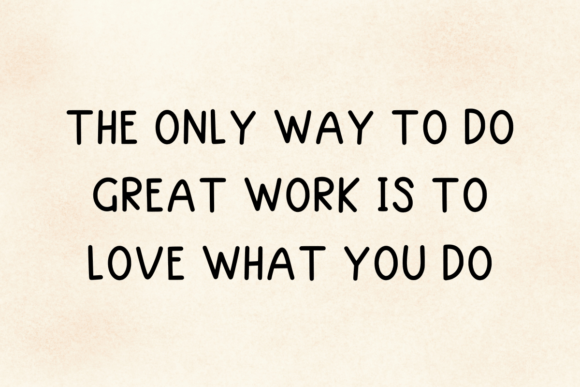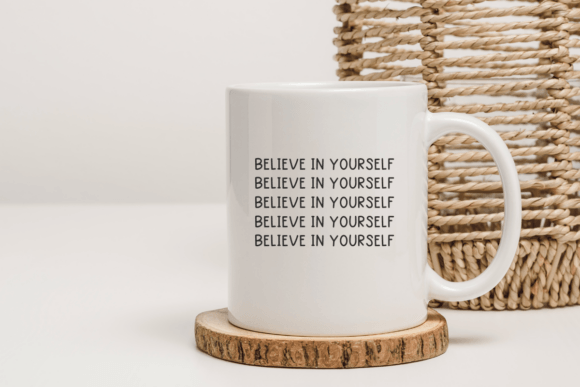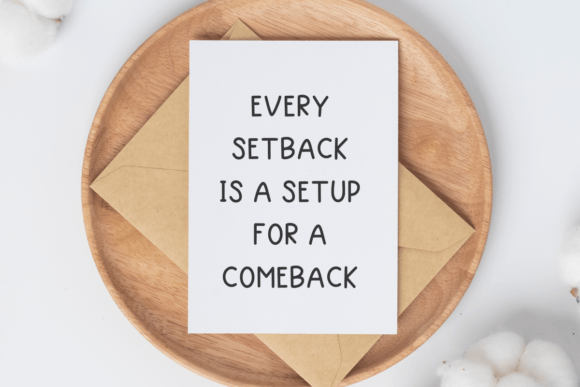
Introducing December Minimalist Font: A Fun Christmas Sans Serif Font for Creative Projects
Are you looking for a font that adds a touch of festive fun to your creative projects? Look no further than the December Minimalist Font! This delightful sans serif font is perfect for a wide range of applications, from KDP books and journals to teaching materials, quotes, scrapbooks, planners, memos, greeting cards, and many more.
What Makes December Minimalist Font So Special?
December Minimalist Font is a unique and playful font that is sure to capture the spirit of the holiday season. Its clean and simple design makes it easy to read and versatile enough to use in a variety of contexts. Whether you’re creating a Christmas-themed journal, a set of festive greeting cards, or a fun planner, this font is sure to add a touch of whimsy and charm.
December Minimalist Font is a dream come true for designers and crafters who love to create unique and engaging projects. With its modern sans serif design, this font is perfect for anyone who wants to add a touch of sophistication and style to their work. Whether you’re a professional designer or a hobbyist crafter, this font is sure to inspire your creativity and help you create stunning projects.
Ideas for Using December Minimalist Font
So, what can you create with December Minimalist Font? The possibilities are endless! Here are a few ideas to get you started:
- KDP Books and Journals: Use December Minimalist Font to create fun and festive KDP books and journals that are perfect for the holiday season.
- Teaching Materials: Add a touch of Christmas cheer to your teaching materials, such as worksheets, quizzes, and activity sheets.
- Quotes and Graphics: Use December Minimalist Font to create inspiring quotes and graphics that are perfect for social media, blogs, and websites.
- Scrapbooks and Photo Albums: Add a personal touch to your scrapbooks and photo albums with December Minimalist Font.
- Planners and Organizers: Create fun and functional planners and organizers that are perfect for keeping track of appointments, tasks, and goals.
- Greeting Cards and Invitations: Use December Minimalist Font to create festive greeting cards and invitations that are perfect for the holiday season.
Why Choose December Minimalist Font?
So, why should you choose December Minimalist Font for your creative projects? Here are just a few reasons:
- Unique and Playful Design: December Minimalist Font has a unique and playful design that is sure to capture the spirit of the holiday season.
- Easy to Read: This font is clean and simple, making it easy to read and versatile enough to use in a variety of contexts.
- Versatile: December Minimalist Font is perfect for a wide range of applications, from KDP books and journals to teaching materials, quotes, scrapbooks, planners, memos, greeting cards, and many more.
- Fun and Festive: This font is perfect for adding a touch of Christmas cheer to your creative projects.
In conclusion, December Minimalist Font is a fun and festive sans serif font that is perfect for a wide range of creative projects. With its unique and playful design, easy readability, and versatility, this font is sure to inspire your creativity and help you create stunning projects. Whether you’re a designer, crafter, or simply someone who loves to create, December Minimalist Font is a great choice for adding a touch of Christmas cheer to your work.